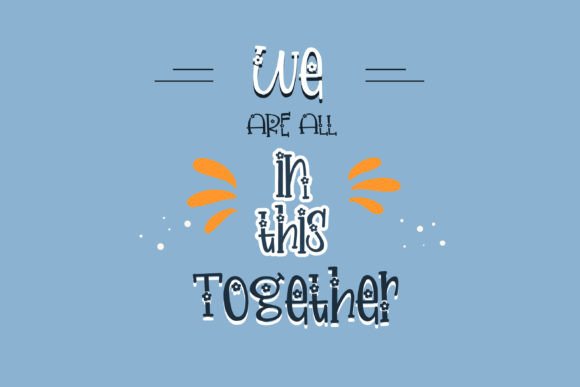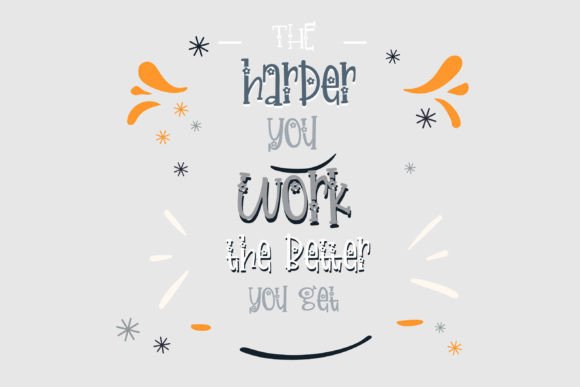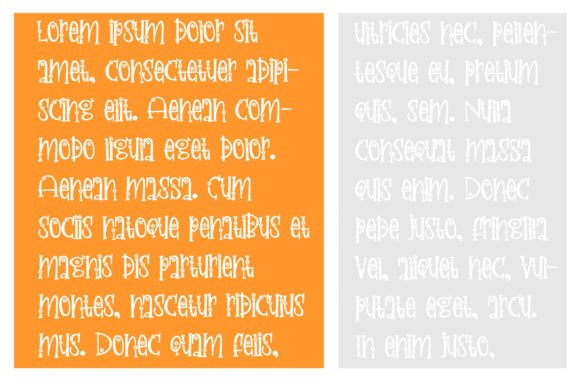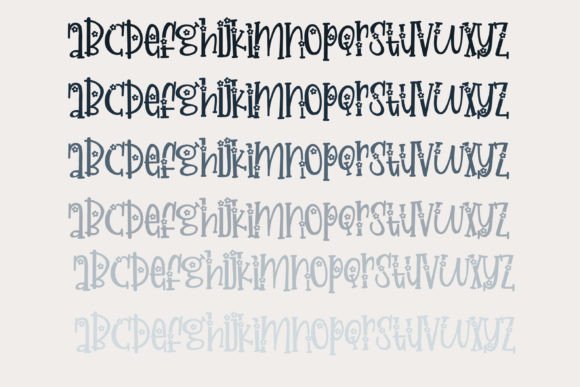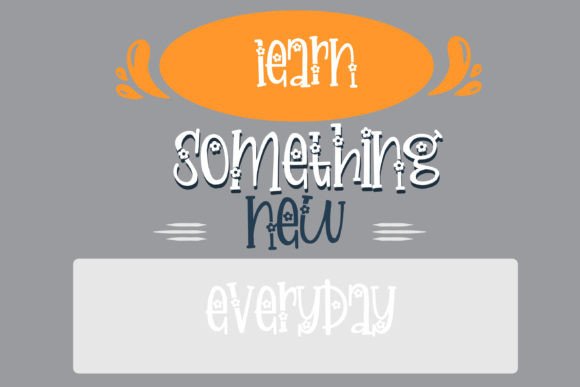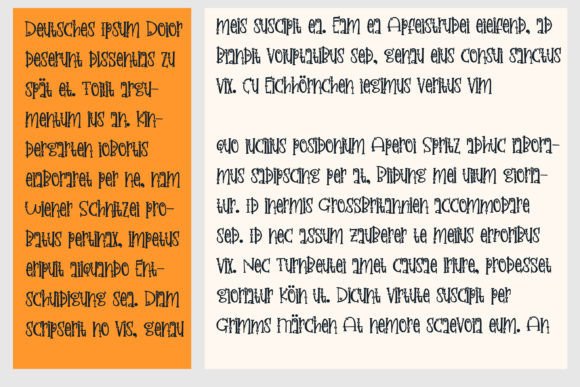
Unleash Your Creativity with Flower Tops Font: The Ultimate Decorative Font for Designers and Crafters
Are you tired of using the same old fonts for your designs? Do you want to add a touch of whimsy and playfulness to your projects? Look no further than Flower Tops Font, a lively decorative font that is sure to bloom with creativity. In this article, we’ll dive into the world of Flower Tops Font and explore its features, benefits, and uses, as well as provide tips and inspiration for designers and crafters.
What is Flower Tops Font?
Flower Tops Font is a unique and charming font that is inspired by flowers. Its whimsical characters are designed to dance playfully across the screen, making any project a delightful visual treat. With its floral charm and lively personality, Flower Tops Font is perfect for crafty designers and crafters who want to add a touch of joy and uniqueness to their designs.
Key Features of Flower Tops Font
- Whimsical characters: Flower Tops Font features playful and whimsical characters that are inspired by flowers.
- Decorative style: This font is perfect for decorative designs, such as invitations, posters, and greeting cards.
- Unique and creative: With its floral charm and lively personality, Flower Tops Font is sure to add a touch of joy and uniqueness to your designs.
Benefits of Using Flower Tops Font
So why should you use Flower Tops Font for your designs? Here are just a few benefits:
- Adds a touch of whimsy: Flower Tops Font adds a playful and whimsical touch to your designs, making them stand out from the crowd.
- Perfect for special occasions: With its floral charm and decorative style, Flower Tops Font is perfect for special occasions, such as weddings, birthdays, and holidays.
- Increases creativity: Flower Tops Font is sure to inspire your creativity and help you think outside the box.
- Easy to pair with other fonts: Flower Tops Font pairs well with other fonts, making it easy to create unique and interesting combinations.
Uses for Flower Tops Font
So what can you use Flower Tops Font for? The possibilities are endless!
- Invitations: Use Flower Tops Font to create beautiful and unique invitations for special occasions.
- Posters: Add a touch of whimsy to your posters with Flower Tops Font.
- Greeting cards: Create one-of-a-kind greeting cards with Flower Tops Font.
- Social media graphics: Use Flower Tops Font to add a touch of personality to your social media graphics.
Tips for Using Flower Tops Font
Here are a few tips for using Flower Tops Font:
- Experiment with different sizes: Play around with different sizes to see how Flower Tops Font looks in different contexts.
- Pair with other fonts: Try pairing Flower Tops Font with other fonts to create unique and interesting combinations.
- Use in combination with images: Use Flower Tops Font in combination with images to add an extra layer of interest to your designs.
Need some inspiration for using Flower Tops Font? Here are a few ideas:
- Create a floral-themed party invitation: Use Flower Tops Font to create a beautiful and unique invitation for a floral-themed party.
- Design a whimsical poster: Add a touch of whimsy to your poster designs with Flower Tops Font.
- Make a one-of-a-kind greeting card: Use Flower Tops Font to create a one-of-a-kind greeting card for a special occasion.
Embracing the floral charm of Flower Tops Font is easy and fun. With its whimsical characters and decorative style, this font is sure to add a touch of joy and uniqueness to your designs. So why not give it a try and let your creativity blossom with Flower Tops Font?